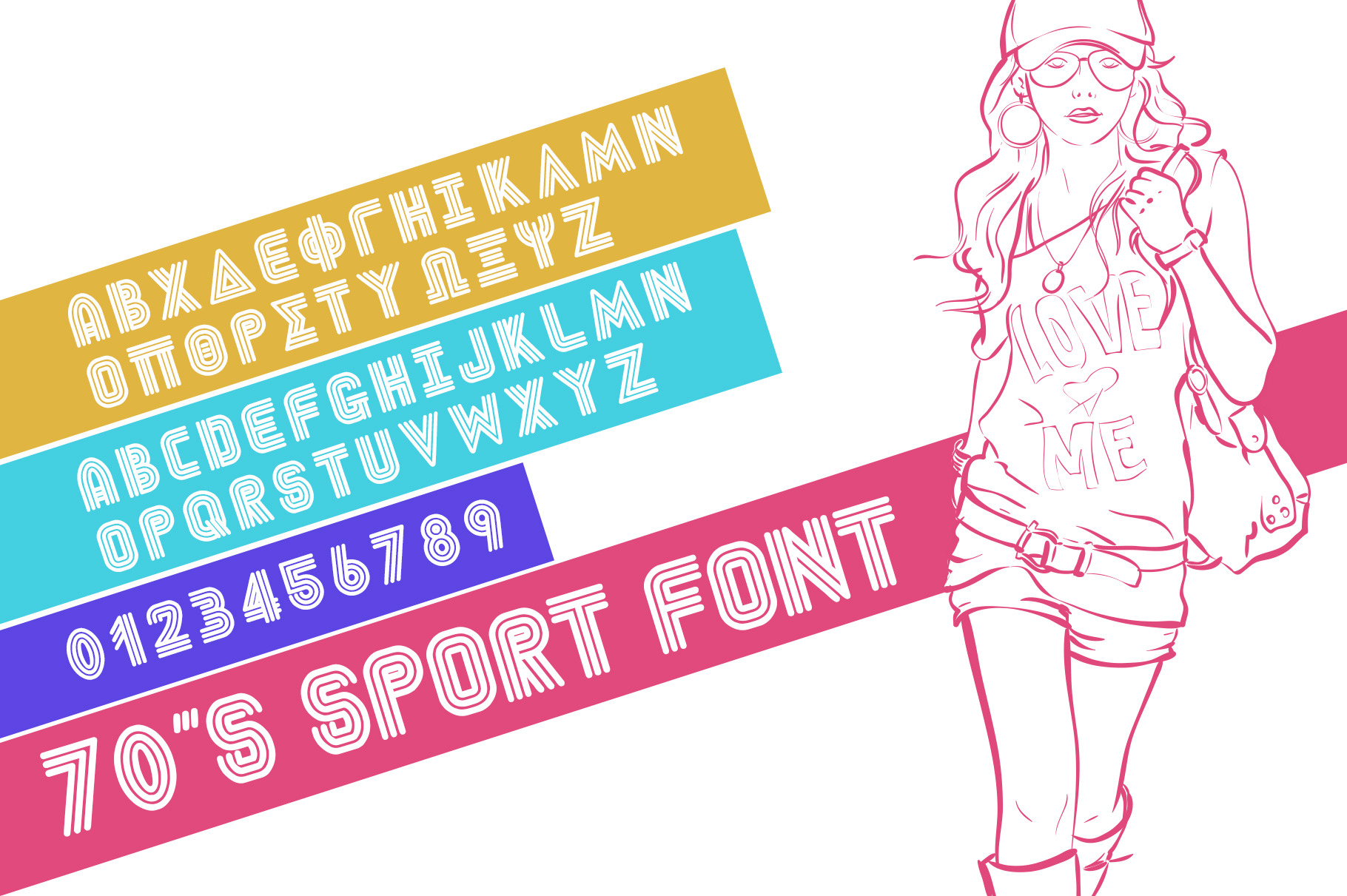
70's Greek Sport Font
The Greek 70's sport font is perfect for designing Greek and Collegiate T-shirts, promotional products and more. The font includes both Greek and English characters. Note this font is designed specifically for fraternities and sororities so it does not have lower case Greek fonts.